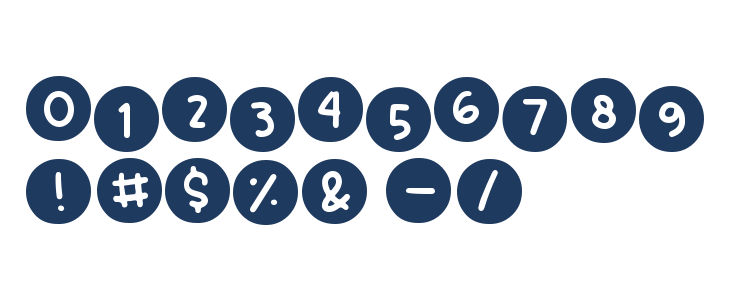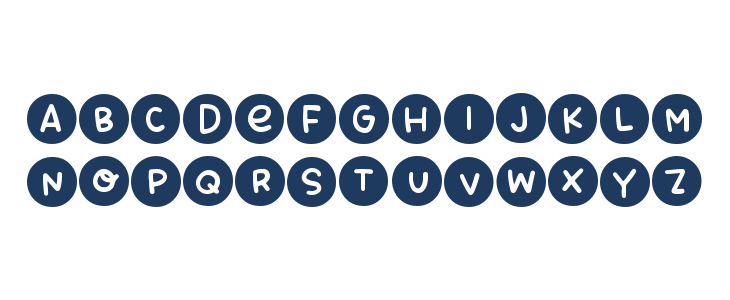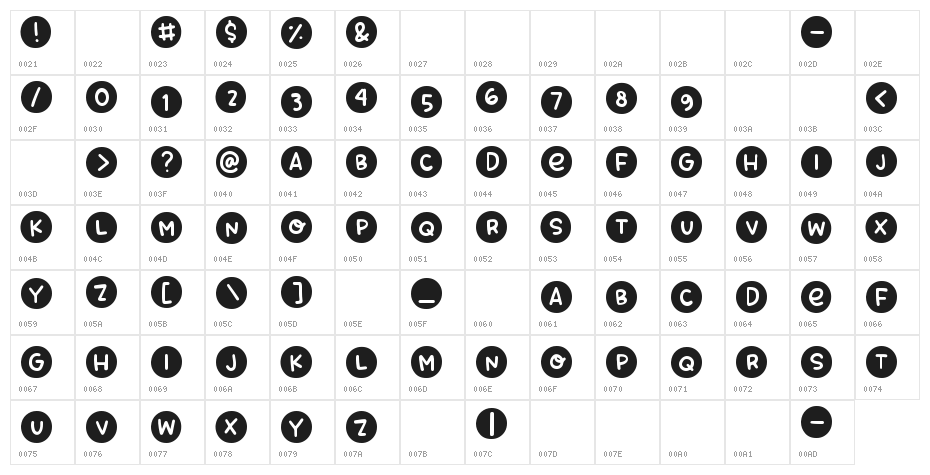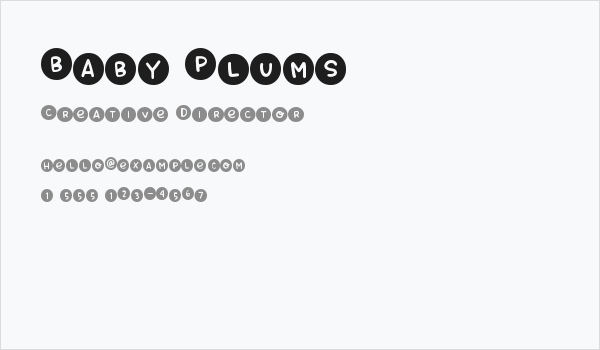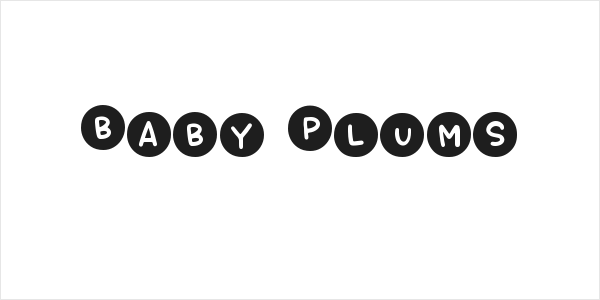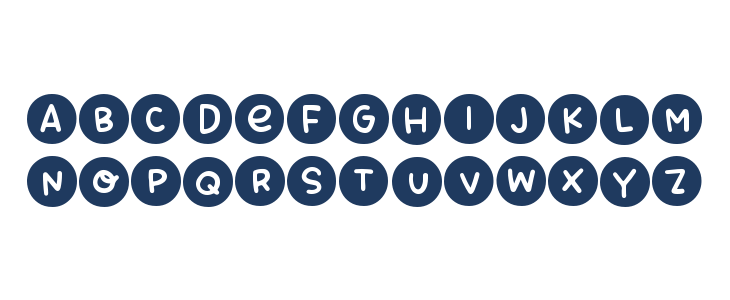
Baby Plums Font
Baby Plums Description
A playful, rounded sans-serif font with each character set inside a solid black circle, featuring hand-drawn, slightly irregular letterforms and numerals that convey a whimsical, informal feel.
| Overall Style | Playful, Whimsical, Decorative |
| Use Case | Headlines, Logos, Posters, ChildrenΓ’β¬β’s materials |
| Proposed Projects | ChildrenΓ’β¬β’s books, playful branding, party invitations, educational materials, toy packaging. |